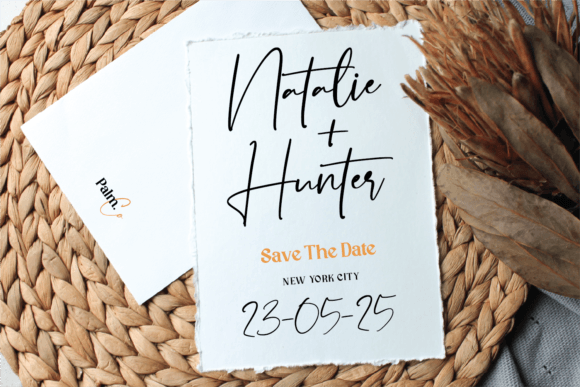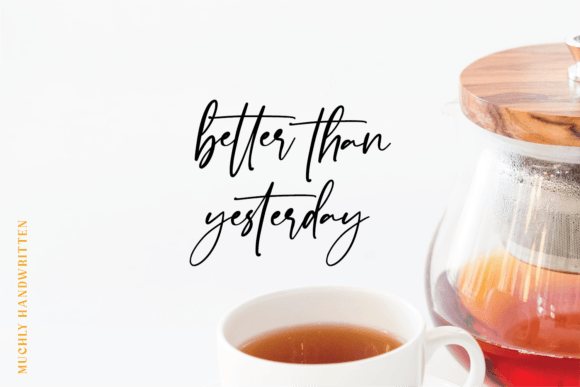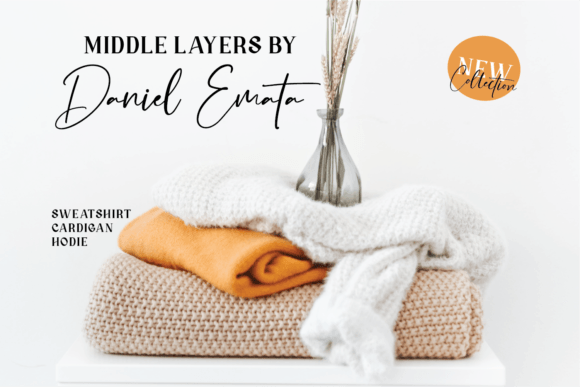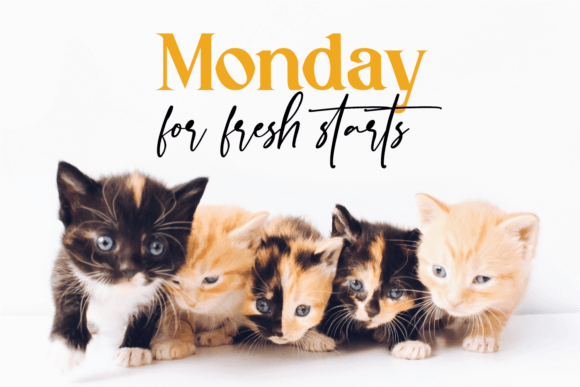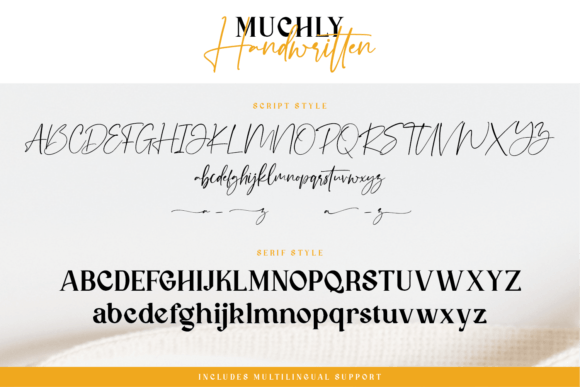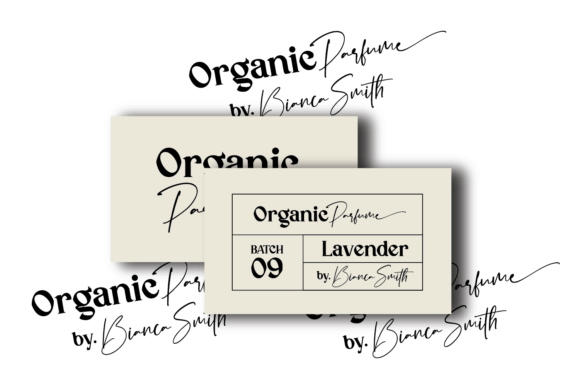
Introduction to Muchly Duo Font
Do you remember the moment when your creative project just comes together? The moment when all the elements align and you feel like a master designer? For many of us, that moment is the result of using the right design resources. One such resource is the Muchly Duo Font, a stunning script and serif duo that can elevate your designs to new heights.
Whether you’re working on a branding project, a marketing campaign, or a personal creative endeavor, the Muchly Duo Font is a valuable addition to your design arsenal. Its high-quality design and transparent background make it perfect for a variety of applications, from digital to print. And the best part? You can download it for free, making it an accessible design resource for designers of all levels.
Key Features of Muchly Duo Font
- High-quality design resource ideal for creative projects, offering a unique and stylish touch.
- Comes with transparent background, allowing for seamless integration into various design elements.
- Includes two distinct font styles, perfect for adding visual interest to your design.
- Features a clean and modern design, suitable for a wide range of creative projects, from logos to graphics.
Honest Review: Muchly Duo Font
As a designer, I’m always on the lookout for high-quality design resources that can elevate my creative projects. The Muchly Duo Font is a recent discovery that caught my attention, and I’m excited to share my thoughts with you.
What works well: ✨ The Muchly Duo Font is a beautifully crafted font with a unique, modern aesthetic that’s perfect for a wide range of creative projects. The font is available for free download, making it an excellent addition to any designer’s toolkit. The transparent background option is a nice touch, allowing for seamless integration with various design elements.
What doesn’t work so well: ⚠️ While the font itself is impressive, I did notice some limitations when it comes to customizability. The font’s unique style may not be suitable for every project, and some designers may find it difficult to pair with other fonts.
Overall, I’m impressed with the Muchly Duo Font’s quality and versatility. It’s a great addition to any designer’s toolkit, and I appreciate the fact that it’s available for free download. If you’re looking for a unique font to elevate your creative project, the Muchly Duo Font is definitely worth considering.
- Unique, modern aesthetic
- May not be suitable for every project
The Muchly Duo Font is perfect for a variety of creative projects, including logo designs, social media graphics, and presentations. Its high quality and transparent background make it ideal for overlaying text on images and creating complex designs with layered text.